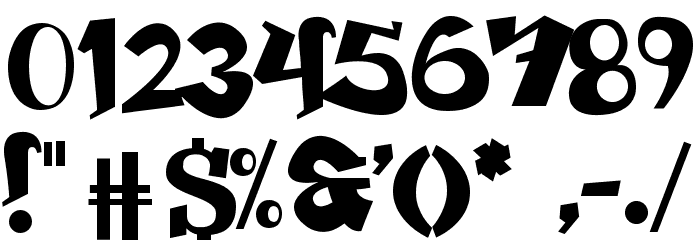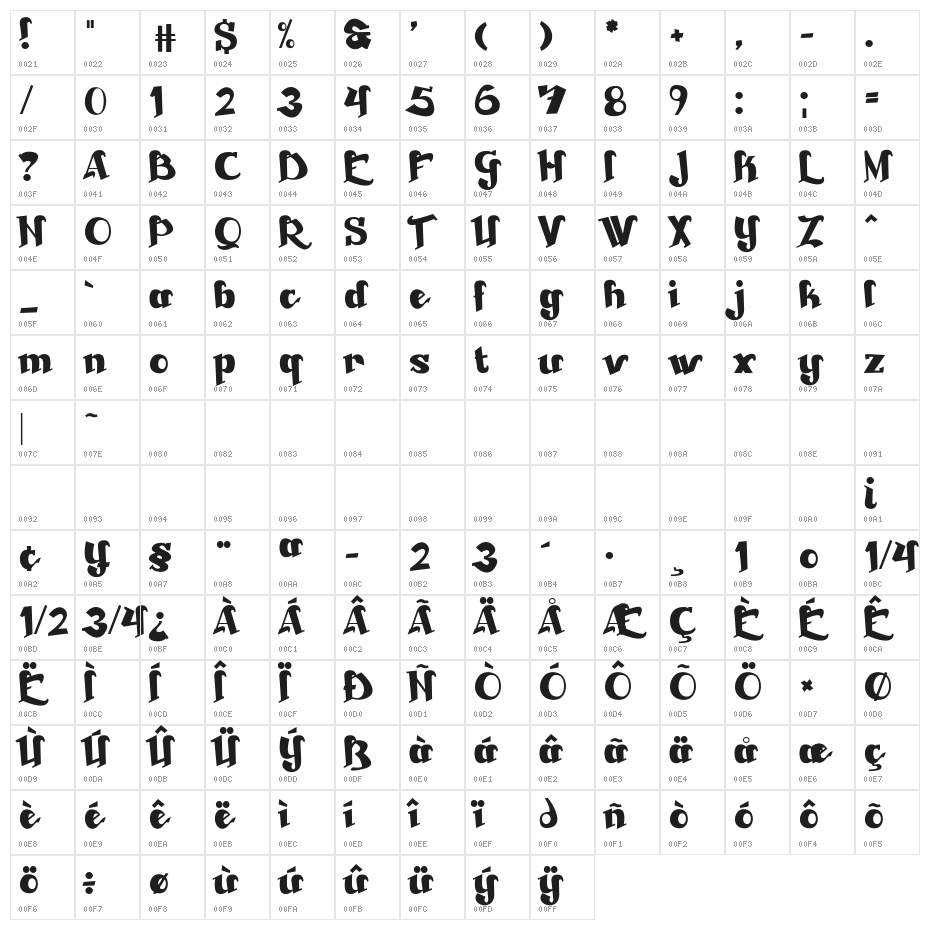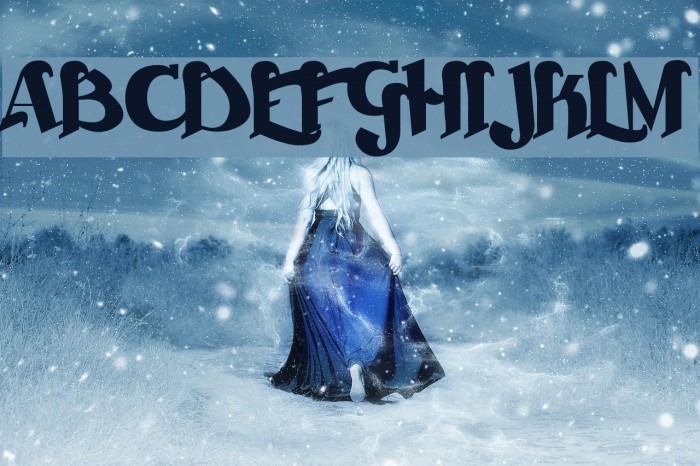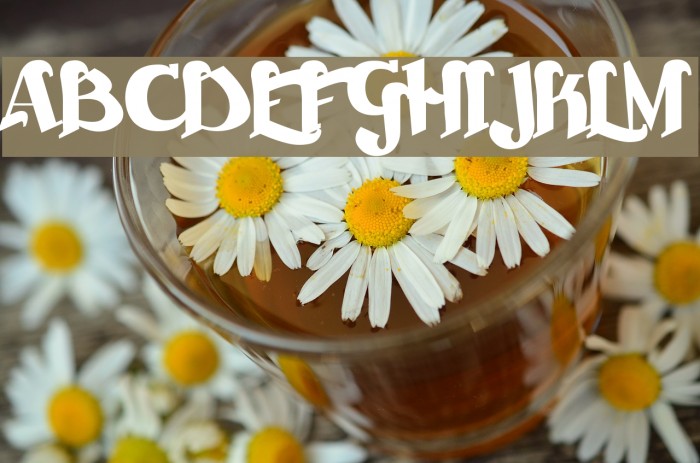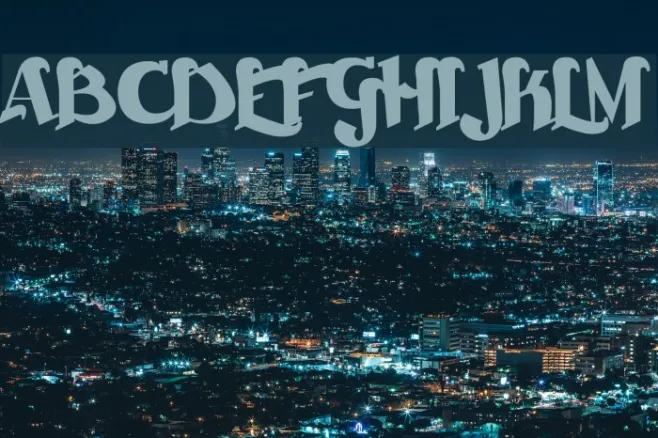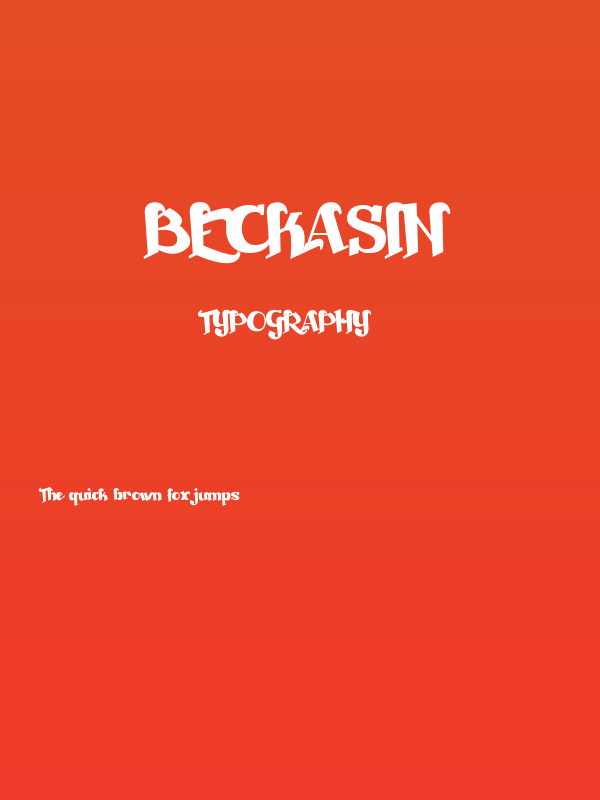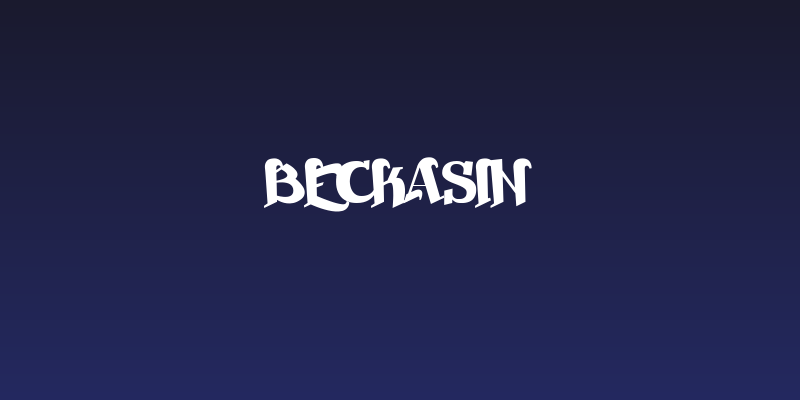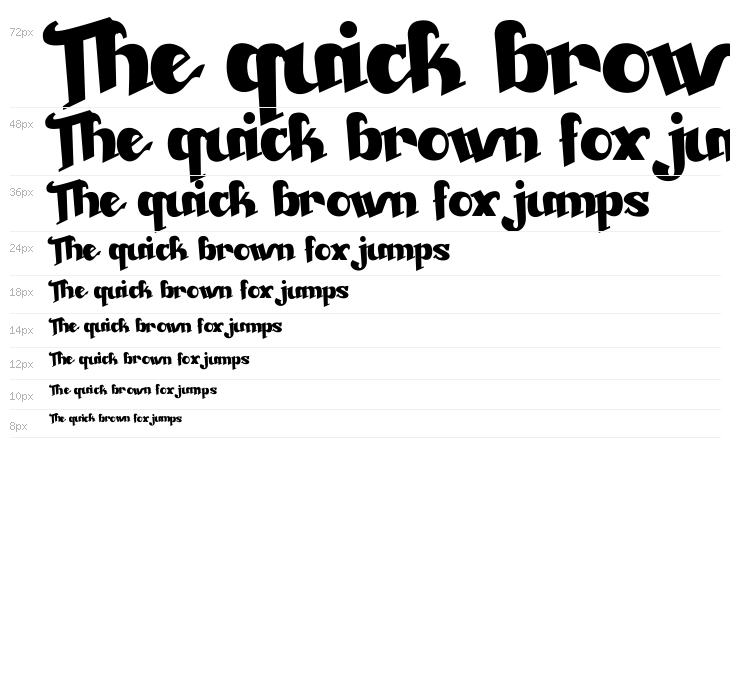
Beckasin Font
Beckasin Description
This font features a bold and dynamic style with a strong presence. The characters are designed with a unique flair, incorporating sharp angles and curves that give it a distinctive and eye-catching appearance. The uppercase letters are particularly striking, with a sense of movement and energy. The lowercase letters maintain a consistent style, complementing the uppercase with their bold and rounded forms. Numbers and special characters are crafted with the same attention to detail, ensuring a cohesive look across all elements. This font is ideal for making a statement, with its bold strokes and artistic design.
| Proposed Projects | Ideal for branding, poster design, and any project requiring a strong visual impact. |